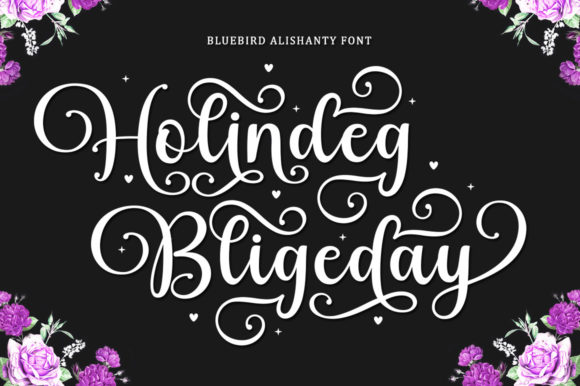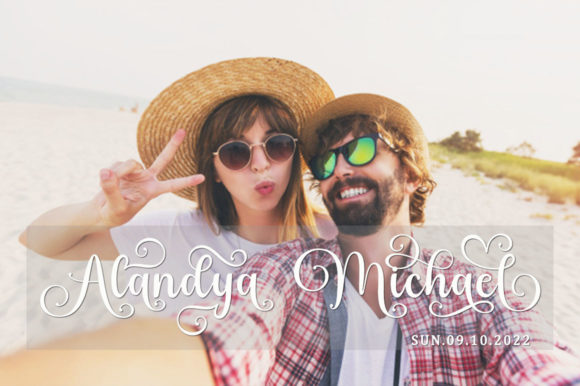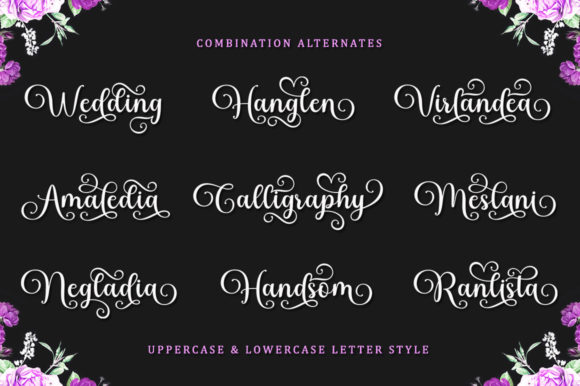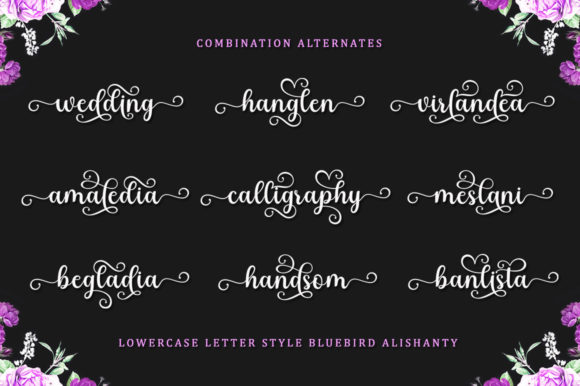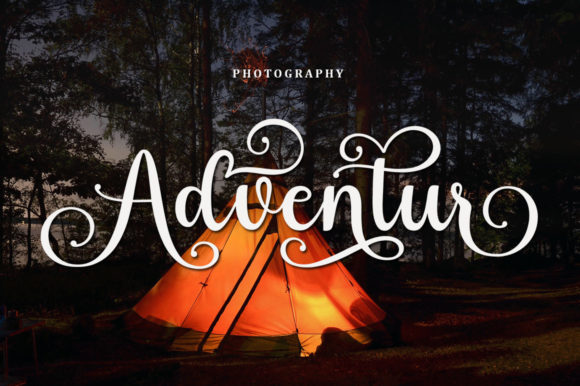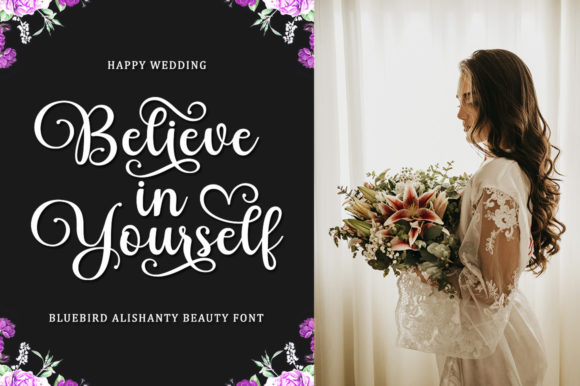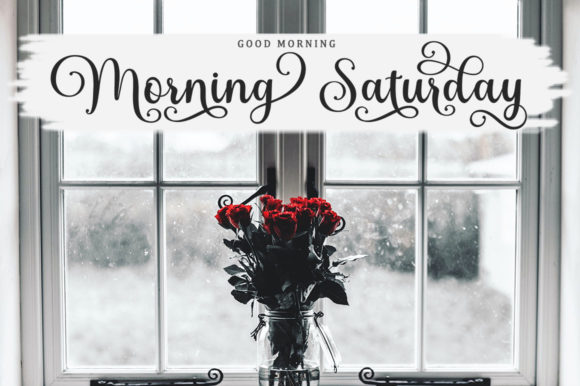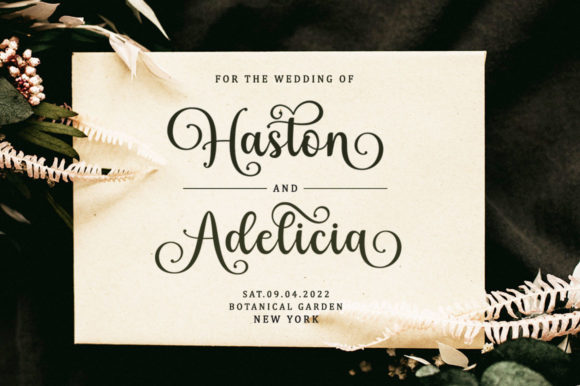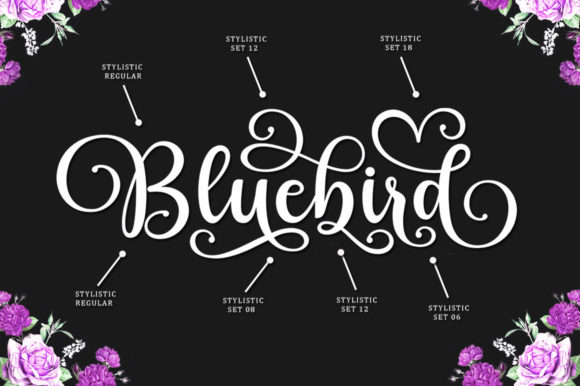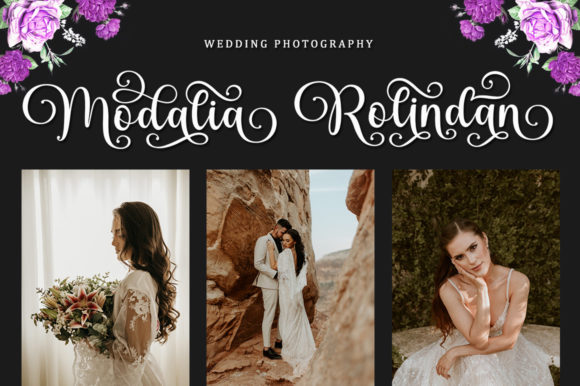
Bluebird Alishanty Font
About Bluebird Alishanty Font
Bluebird Alishanty is a font that effortlessly captures the essence of style, elegance, and uniqueness. With its meticulously crafted letterforms and distinct character, this handwritten gem has the ability to elevate your creative endeavors to new heights.
The graceful and sophisticated strokes of Bluebird Alishanty make it a standout choice for a wide range of design projects. Its elegant curves and intricate details lend an air of refinement to any composition, whether it’s gracing wedding invitations with a touch of romance, enhancing thank you cards with a sense of appreciation, or adorning logos and branding materials with a personalized flair.
The font’s innate charm lies in its ability to seamlessly blend classic aesthetics with a contemporary twist. Bluebird Alishanty effortlessly marries timeless elegance with modern sensibilities, making it a versatile tool for creating designs that resonate with a diverse audience.
The uniqueness of Bluebird Alishanty shines through in its one-of-a-kind character set. Each letter exudes personality and charm, reflecting the artful imperfections that lend an authentic and human touch to your creations. This individuality makes every piece created with Bluebird Alishanty truly distinct and memorable.
The font’s versatility extends to its legibility and readability. While it exudes sophistication, Bluebird Alishanty ensures that your messages are effectively communicated to your audience. Its carefully balanced design ensures that even longer passages of text remain clear and easy to understand.
The practicality of Bluebird Alishanty is complemented by its PUA encoding, which grants you easy access to all its glyphs and swashes. This feature allows you to effortlessly incorporate special characters and decorative elements, enhancing the visual appeal of your designs and expanding your creative possibilities.
Whether you’re designing for print, digital media, or any other medium, Bluebird Alishanty adapts seamlessly to various contexts. From social media graphics that demand attention to packaging that exudes luxury, this font adds a touch of class to every project it graces.
Incorporating Bluebird Alishanty into your creative toolkit empowers you to transform ordinary ideas into extraordinary masterpieces. Its potential to captivate and engage audiences is unmatched, making it an essential asset for designers who seek to leave a lasting impression.
In conclusion, Bluebird Alishanty is more than just a font—it’s a statement of elegance, style, and artistic finesse. Its ability to enhance the beauty of your projects and bring your creative visions to life is a testament to its design excellence. With Bluebird Alishanty as part of your repertoire, you have the tools to create designs that resonate, inspire, and captivate.